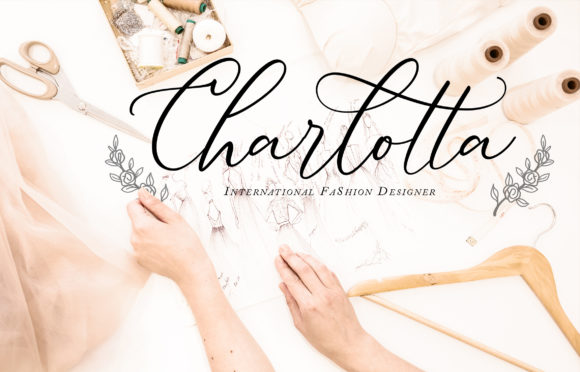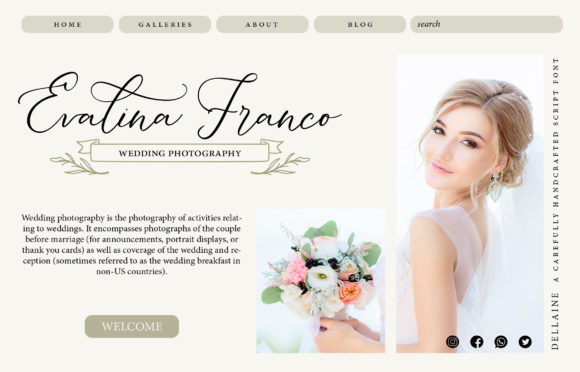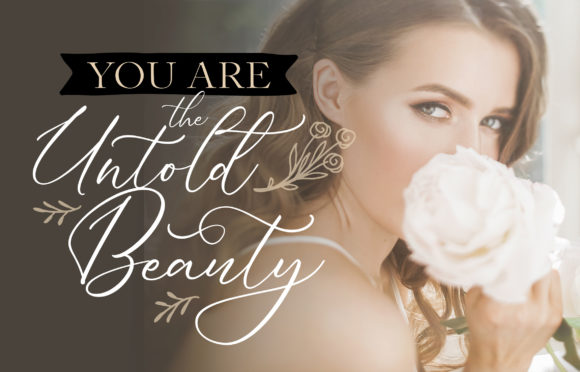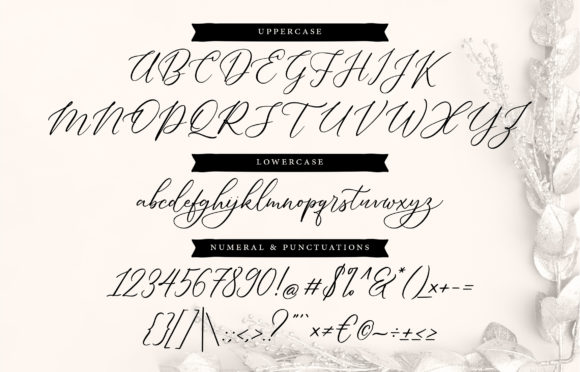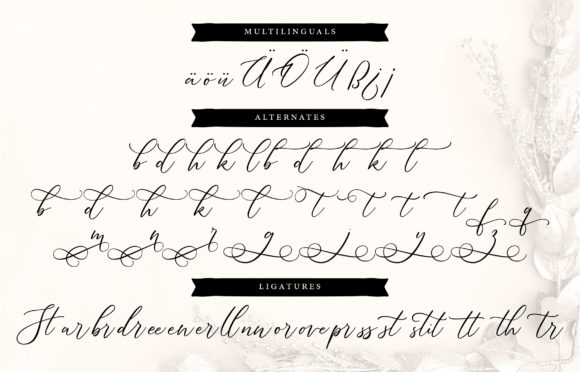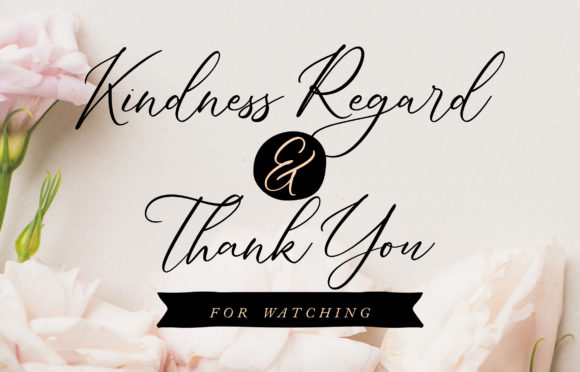
Dellaine Font
About Dellaine Font
Dellaine is a magical script font carefully created with a touch of elegance. This is a beautiful combination of timeless elegance and authentic calligraphy. It features an incredibly classic style, while still keeping a friendly feel. Dellaine is the perfect font for making original and outstanding designs. This font is PUA encoded which means you can access all of the cute glyphs and swashes with ease! It also features a wealth of special features including alternate glyphs and ligatures.